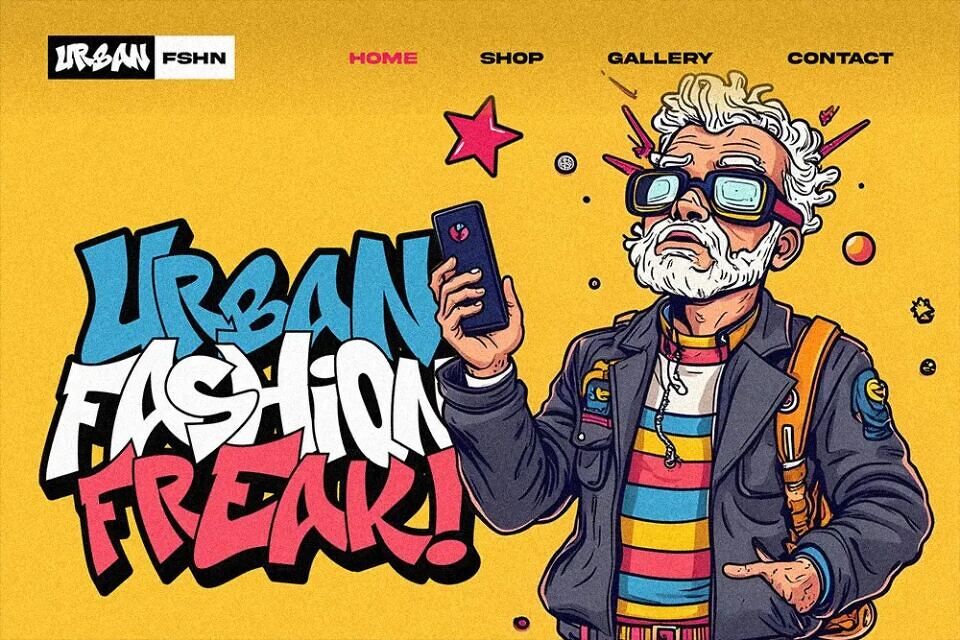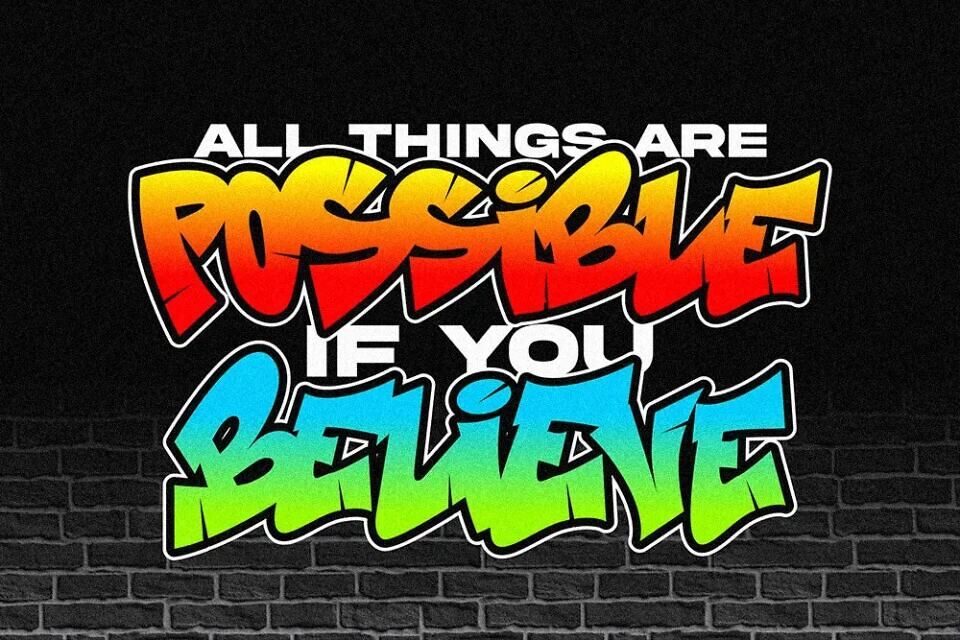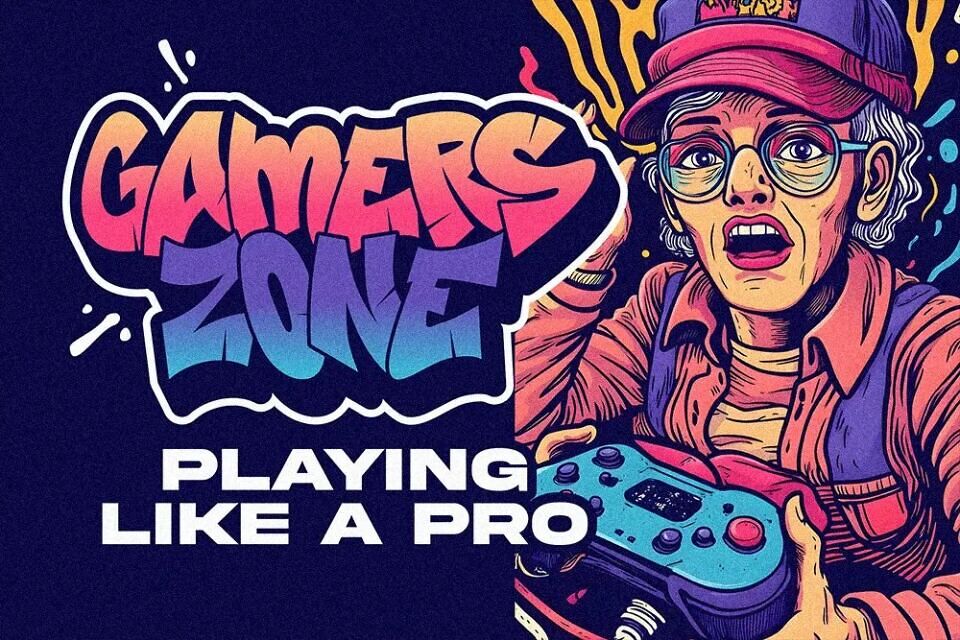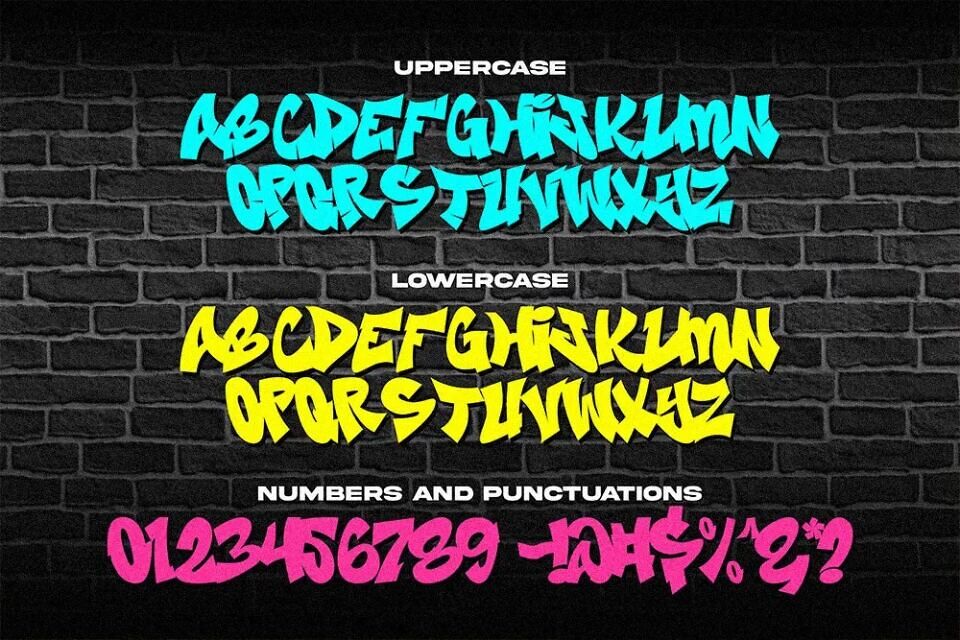
Brick Edgie is a graffiti-style display font built to bring an urban attitude to your design projects. With thick, sharp strokes and a raw handwritten look, this typeface captures the fearless energy of street culture — perfect for bold headlines, merch designs, music visuals, and more.
Whether you’re designing for a streetwear brand, a mixtape cover, or viral content on TikTok or YouTube, Brick Edgie delivers impact with zero compromise.